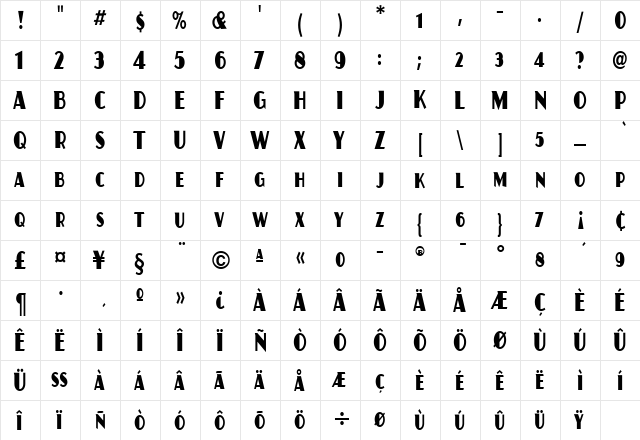
Juanita Condensed ITC Condensed
Design Context for Juanita Condensed ITC Typeface
Juanita Condensed ITC offers clean, dependable letterforms without strong stylistic allegiance, making it a practical choice for designers who need flexibility. Its narrow stance lets it pack a punch even in space-constrained designs.